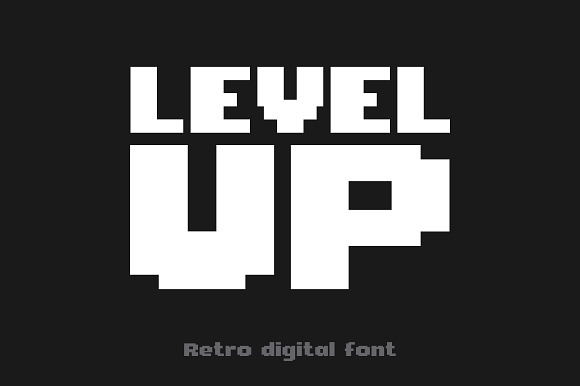
Level Up font
Geometric font with authentic digital feeling.
Why Level Up font is worth a look
Level Up font by Youhhou fits naturally into Branding, posters, packaging, typography.